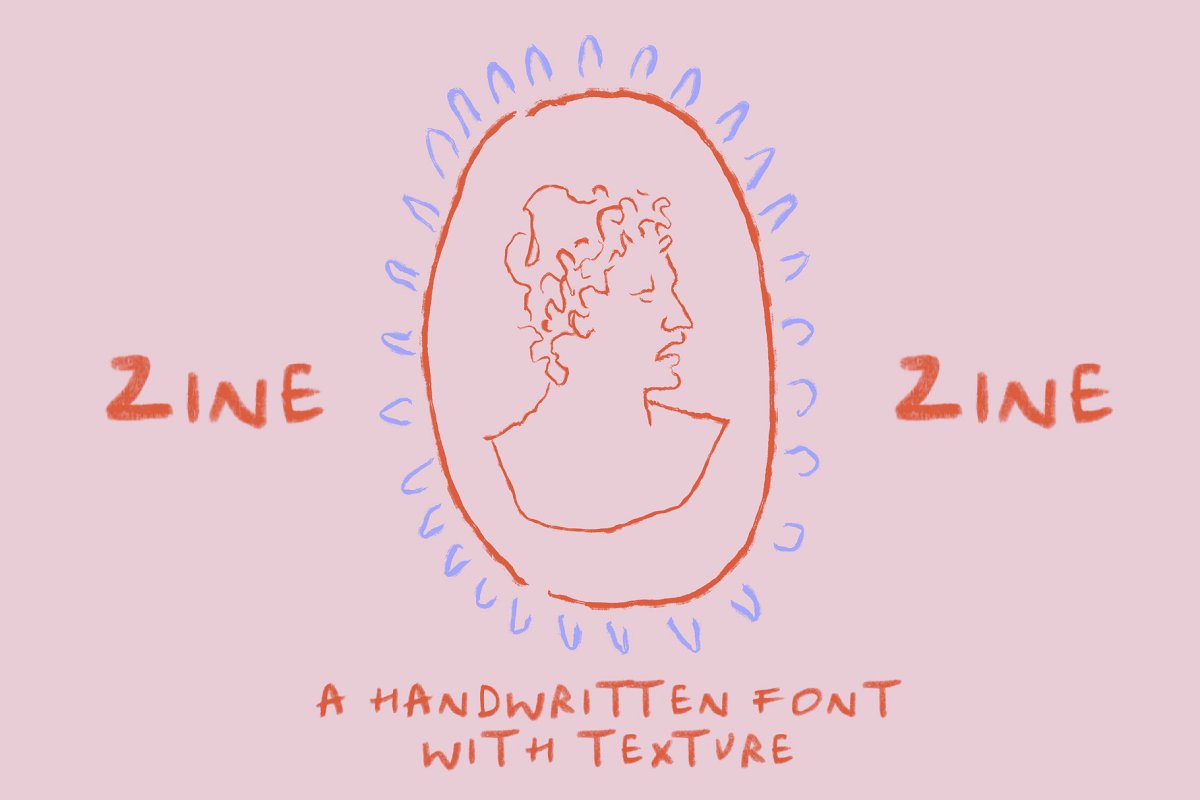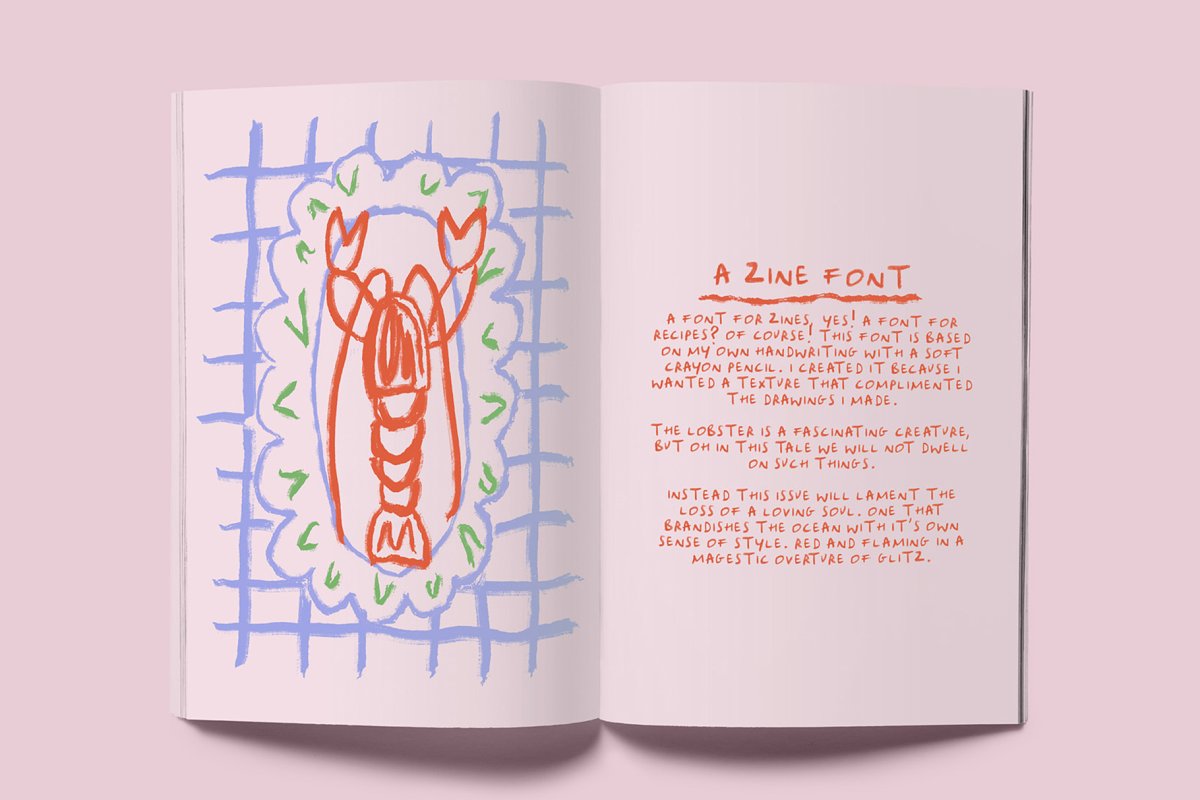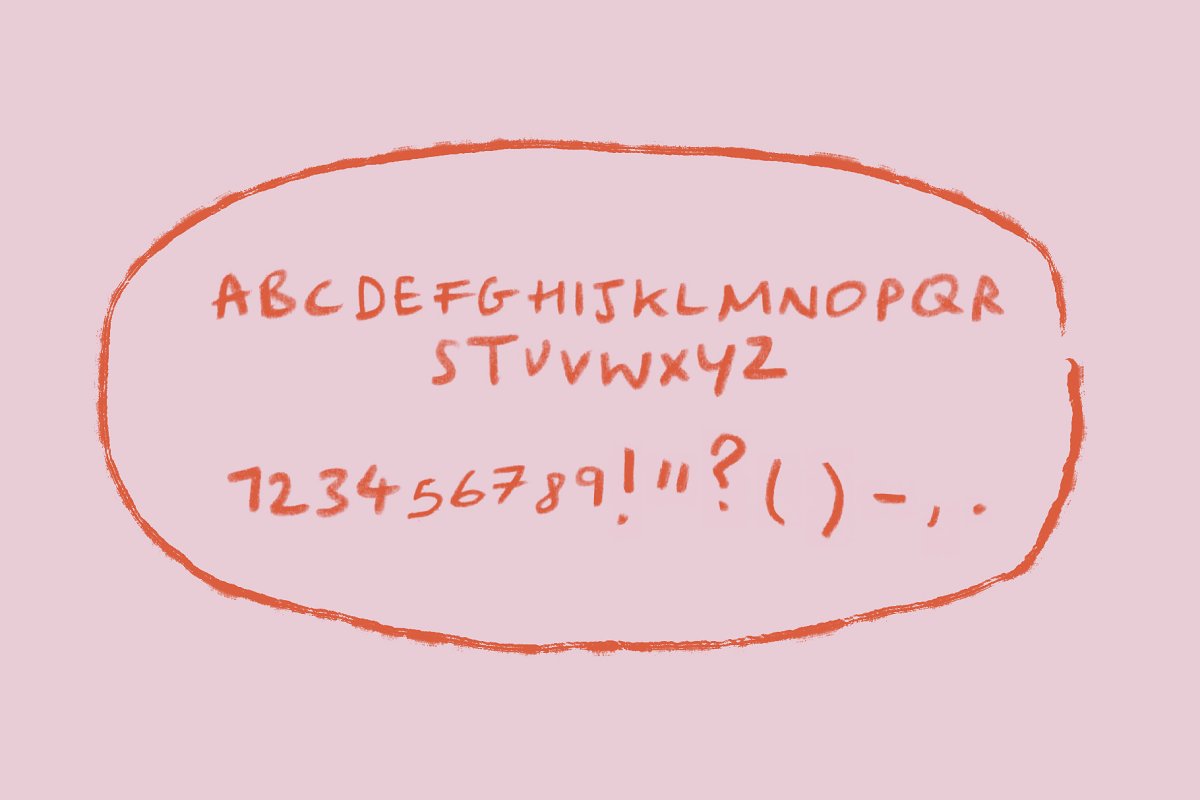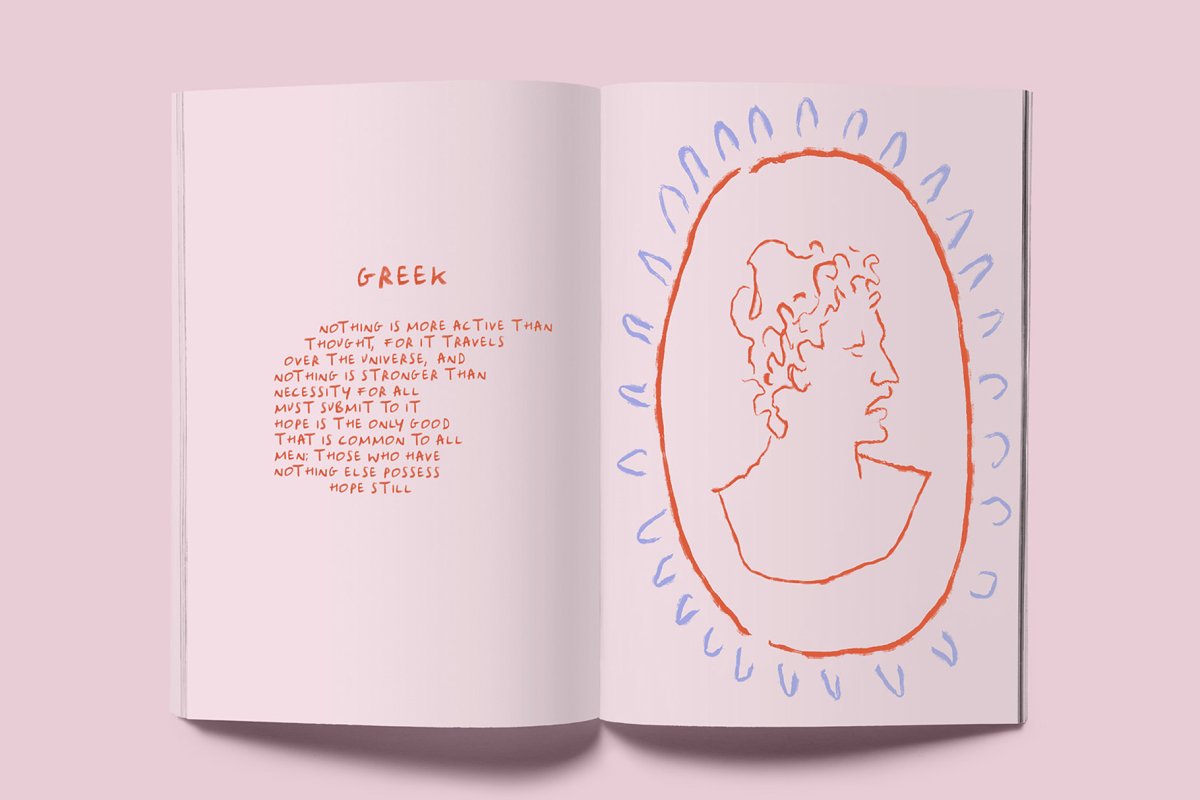
About the Zine SVG A Handwritten Font
A font for zine makers, but not just zine makers, This font is also perfect for recipes, illustrations and packaging, As an SVG the font retains the textures and colouring of the original crayon pencil, I went for this texture since I’ve started using more and more analogue in my work, and vector fonts weren’t cutting it for the zine aesthetic, Includesotf fontThis package comes with one SVG font to use in programs such as Photoshop